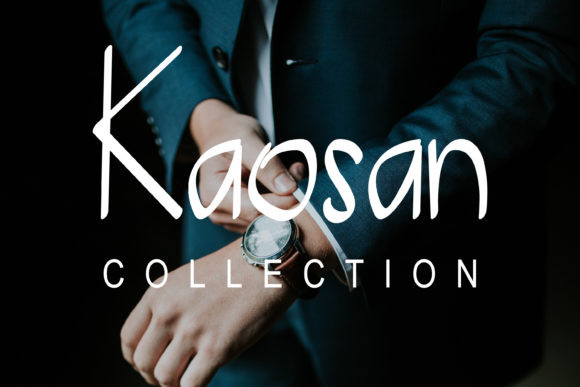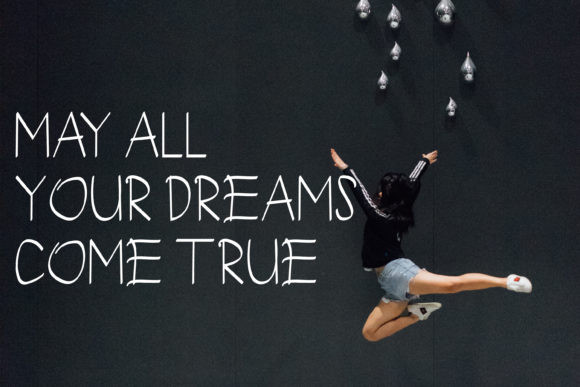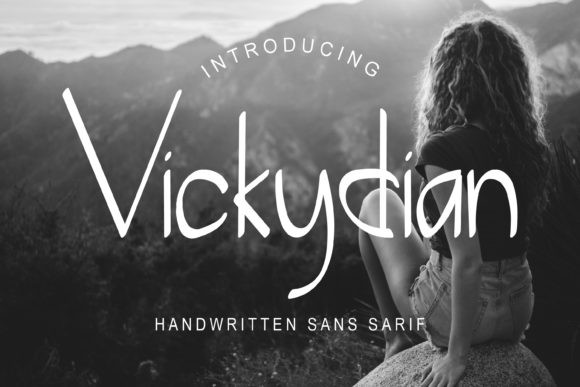
Vickydian Font
Vickydian is a unique and charming sans serif font with a bold feel. Get inspired by its unique feel, and add a bold spark to any design project